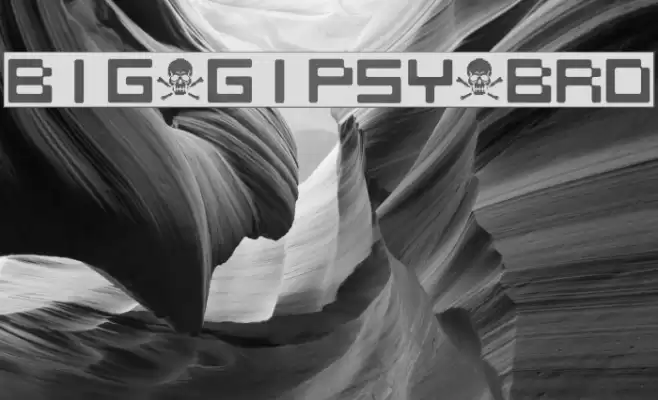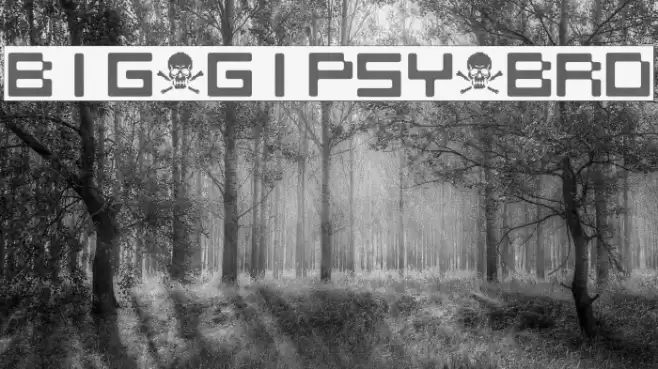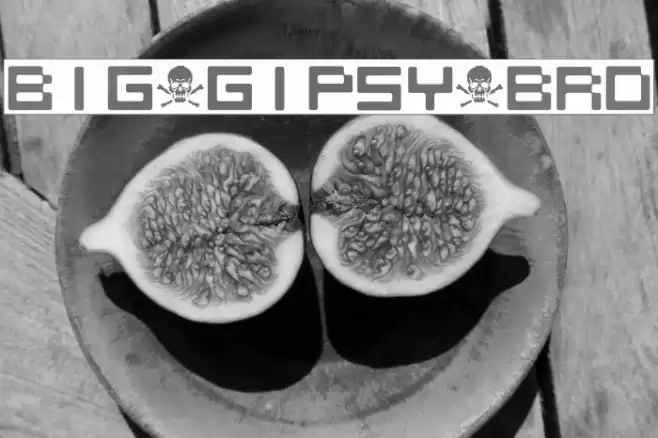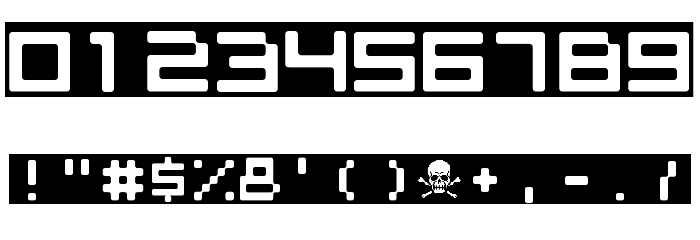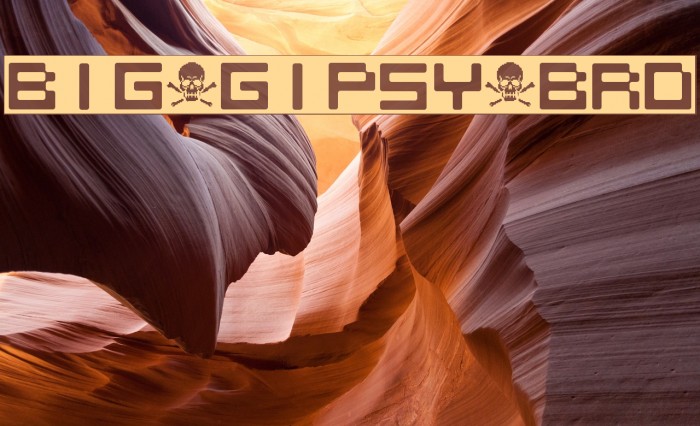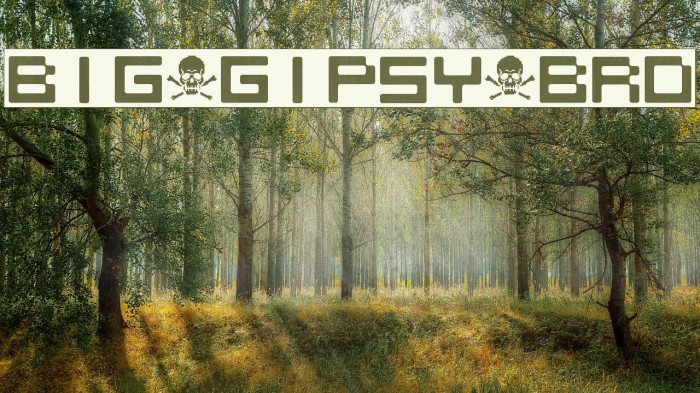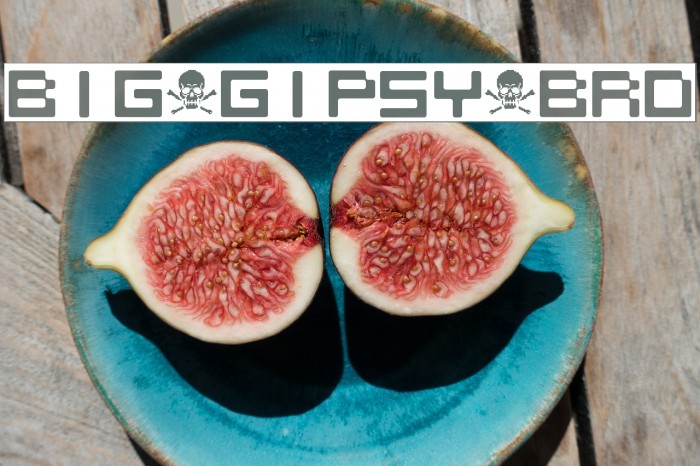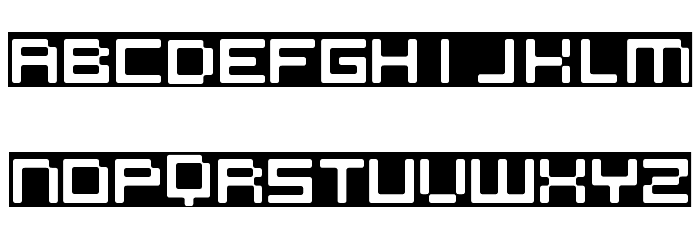
BIG_GIPSY_BRO Font
BIG_GIPSY_BRO Description
This font features a bold, geometric design with a distinctly modern and futuristic aesthetic. The characters are constructed with a blocky, stencil-like appearance, creating a strong visual impact. The uppercase letters are uniform in height, with sharp angles and clean lines that convey a sense of precision and strength. The numbers and special characters maintain this cohesive style, ensuring consistency across all elements. The font's unique style makes it ideal for projects that require a bold, eye-catching typeface.
A bold, geometric font with a modern, stencil-like design.
- Proposed Projects: Ideal for branding, posters, video game graphics, and sci-fi themed projects.